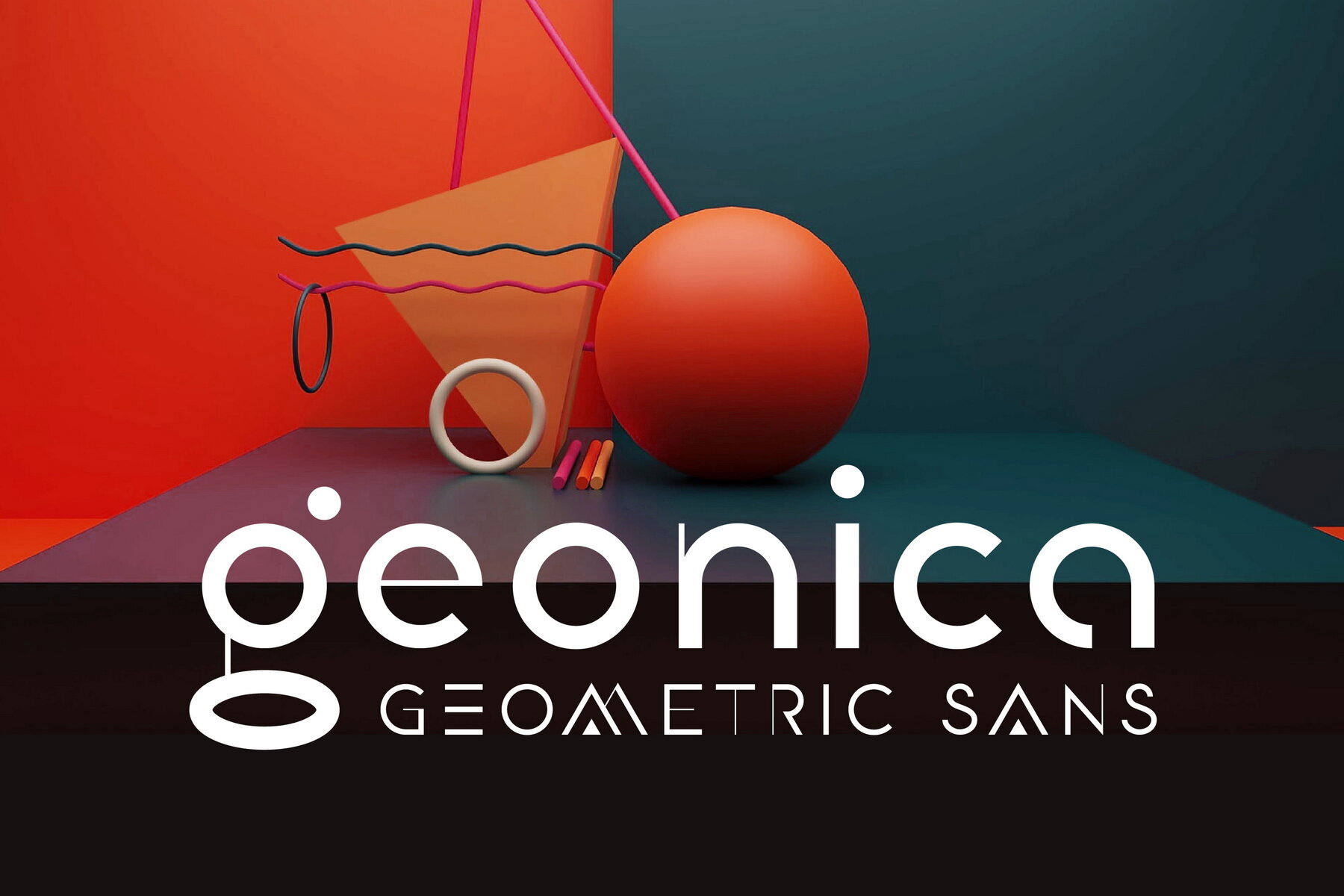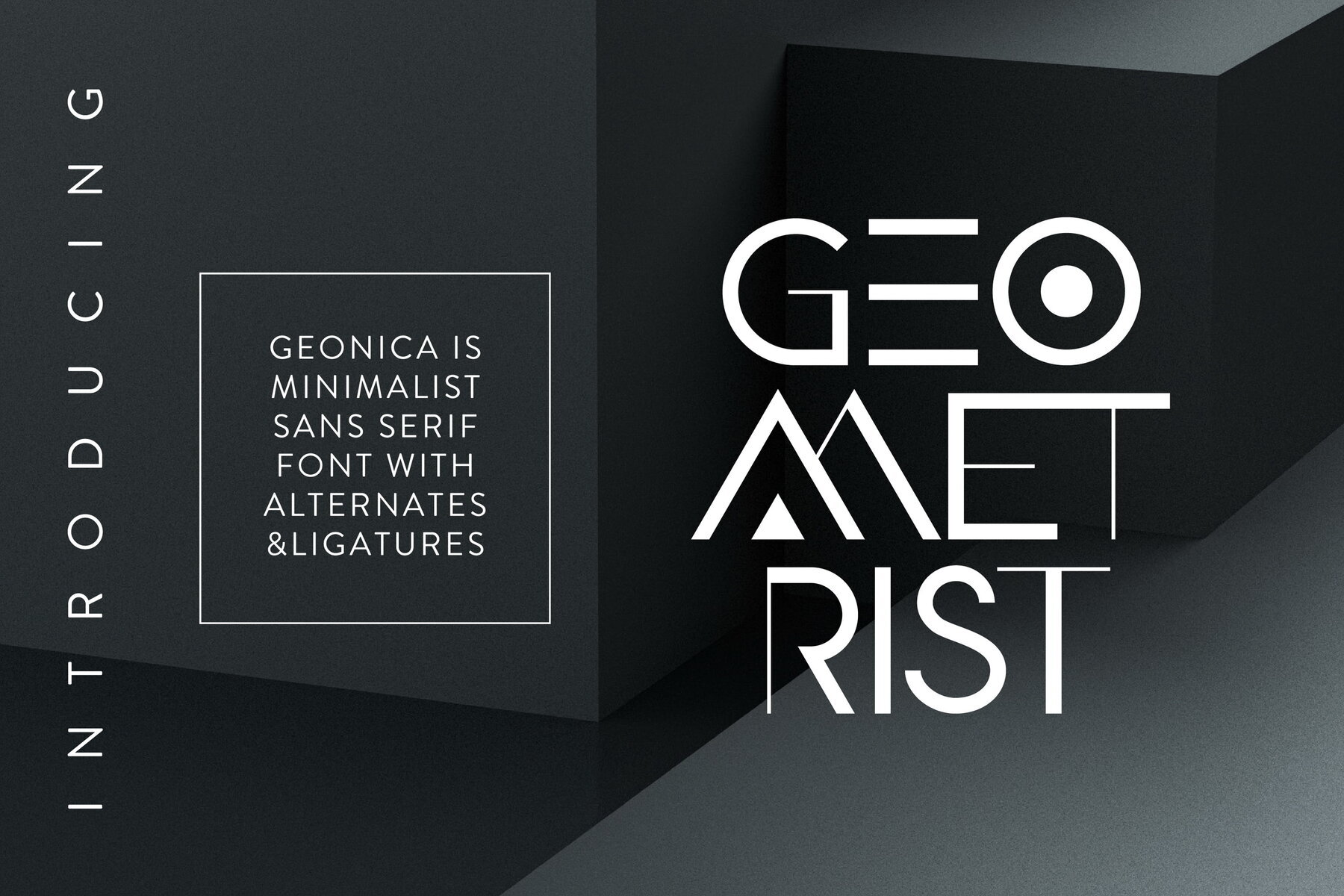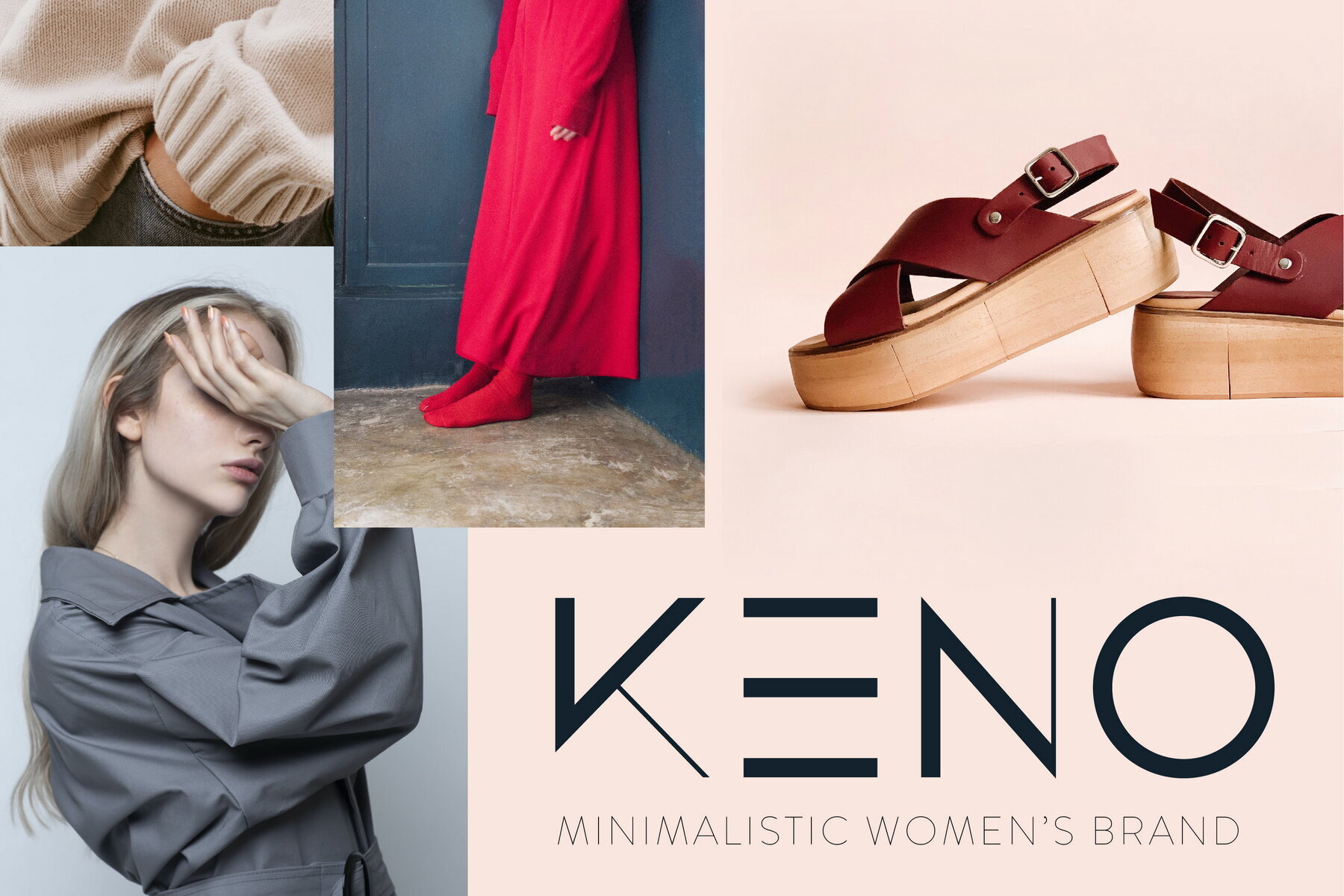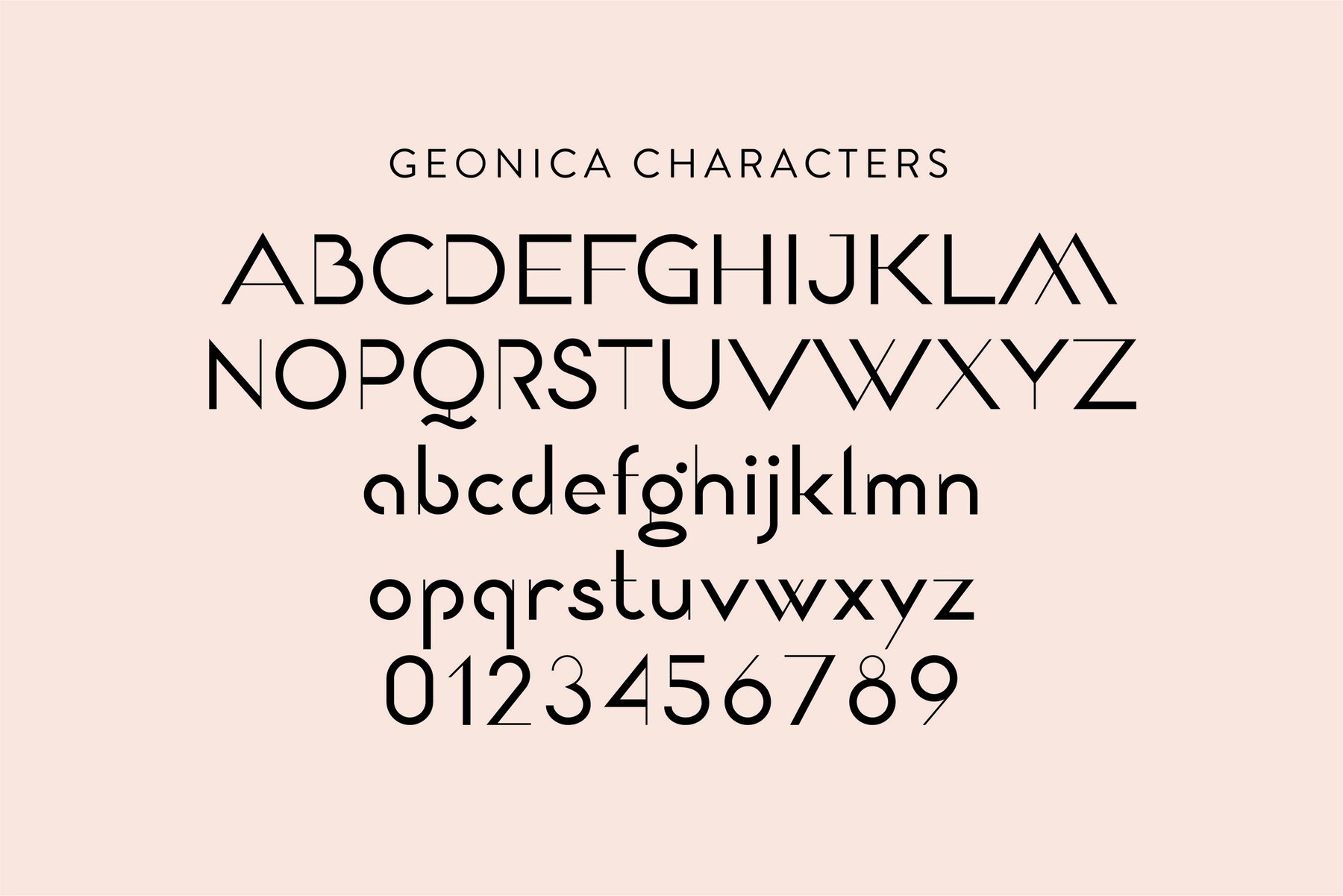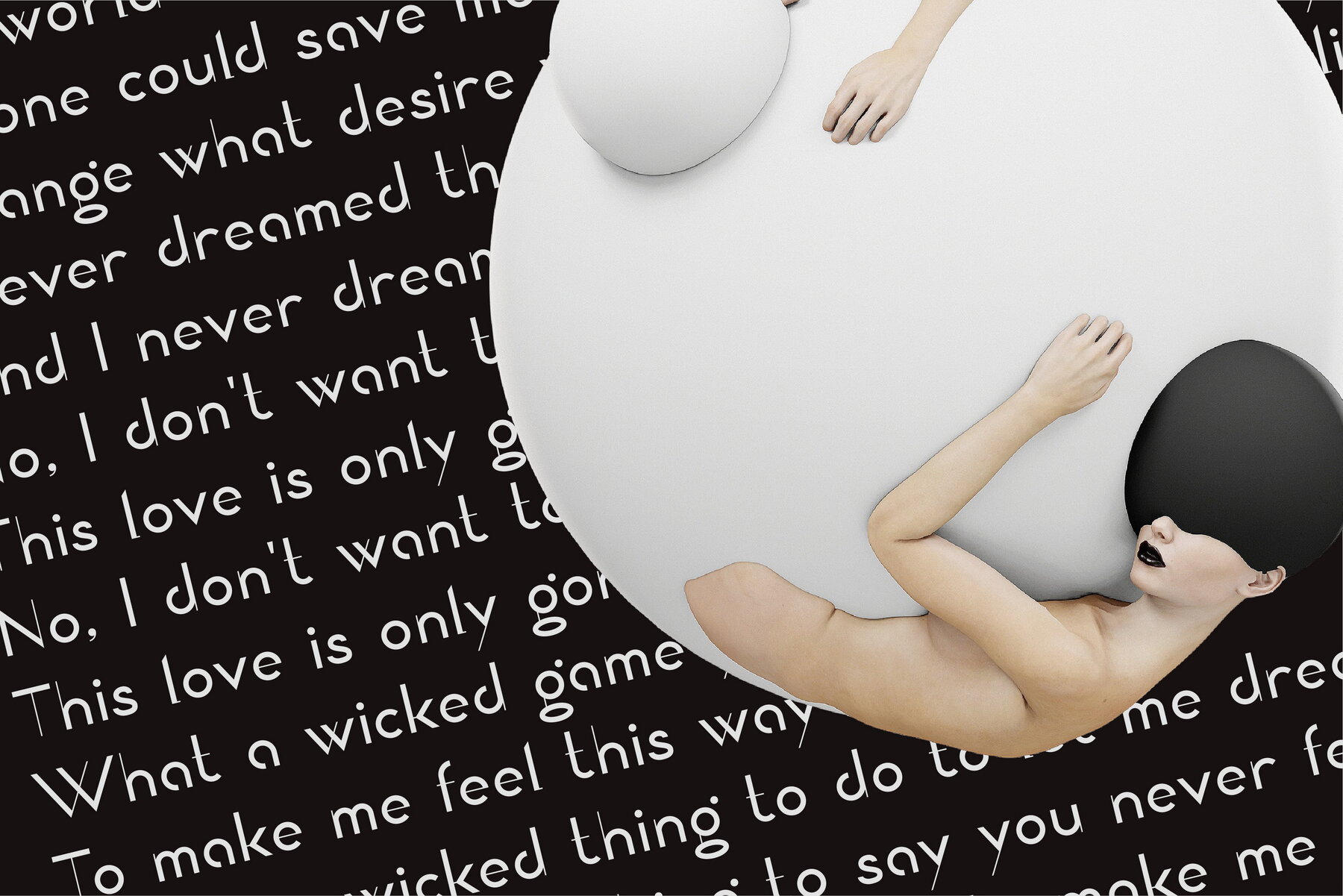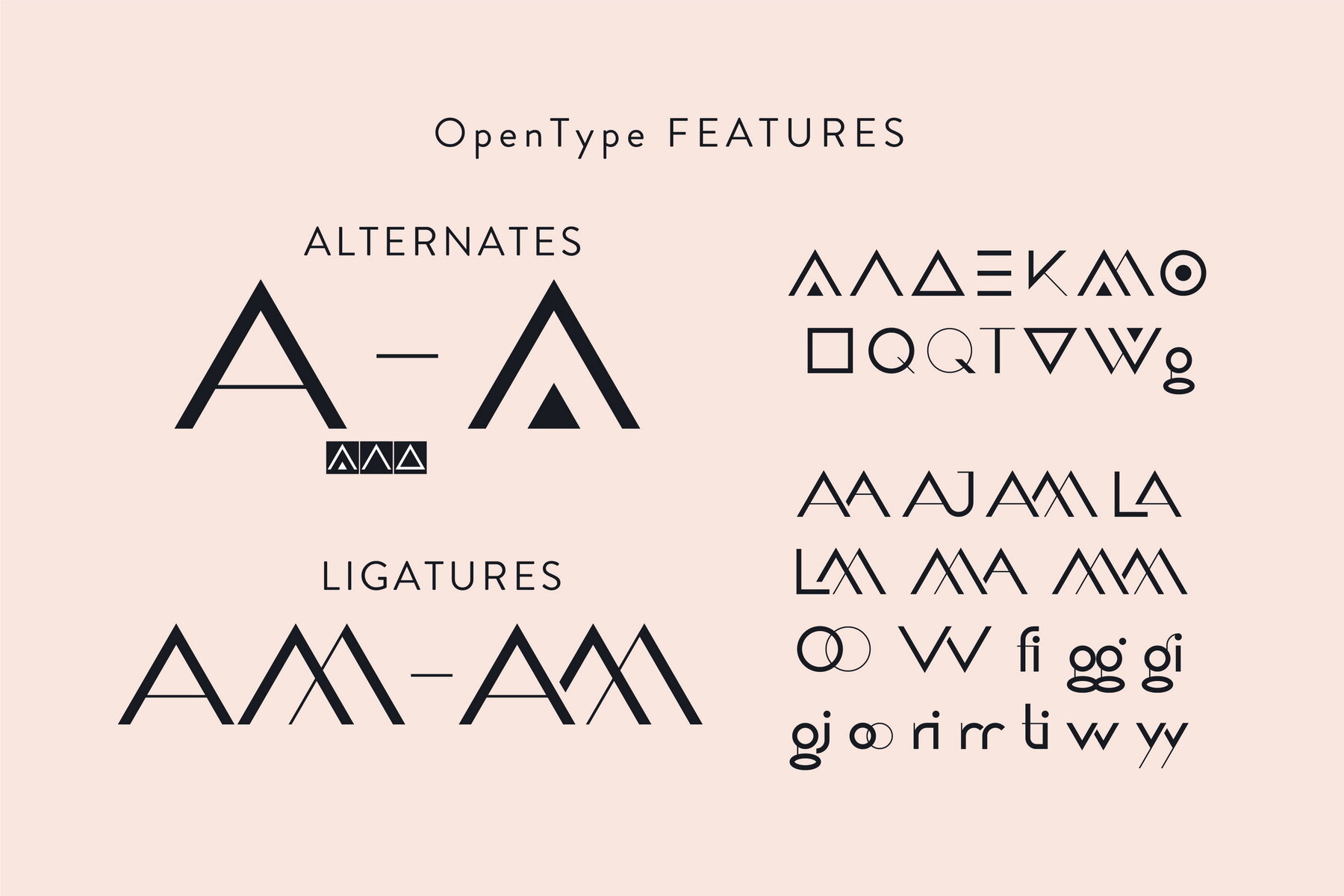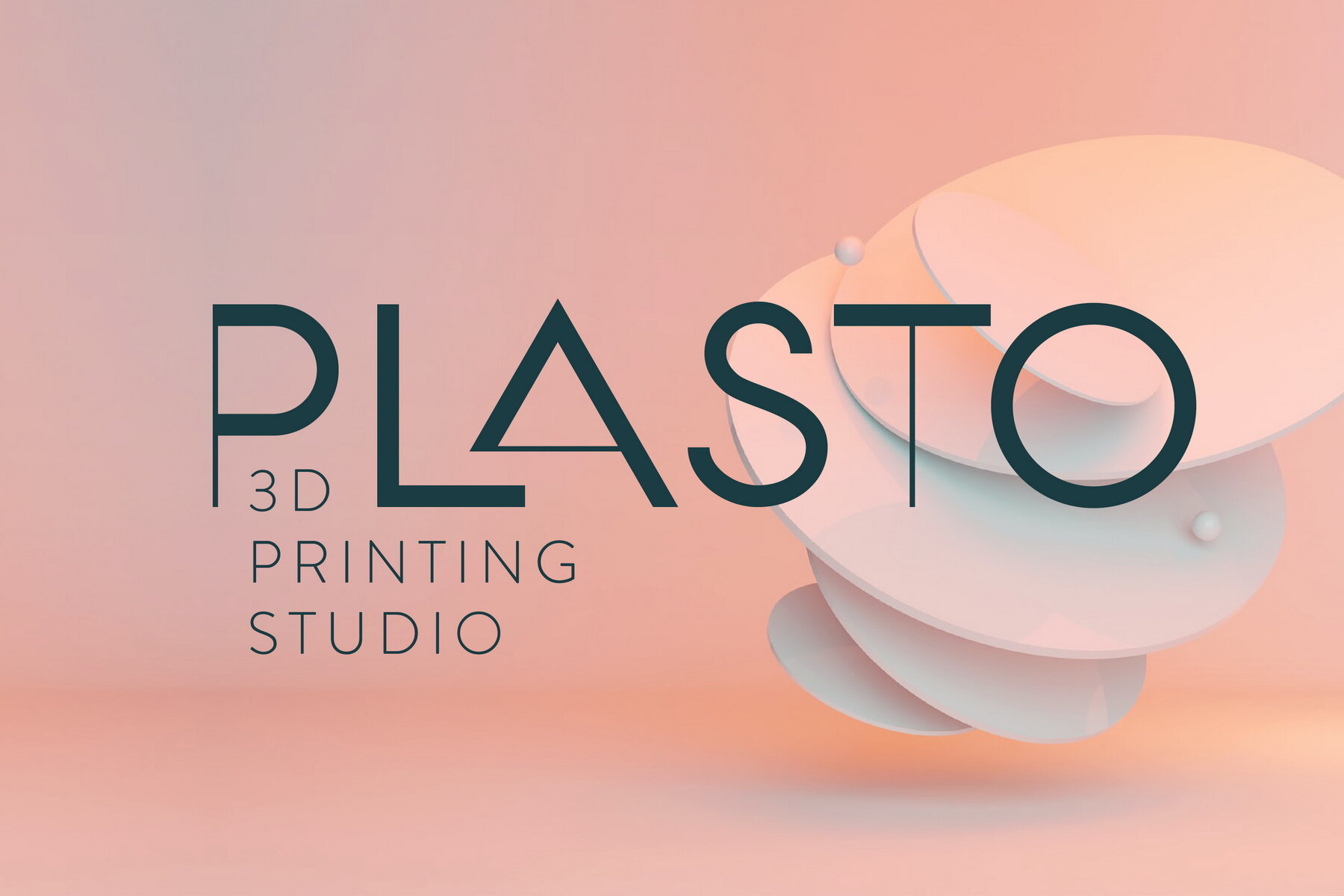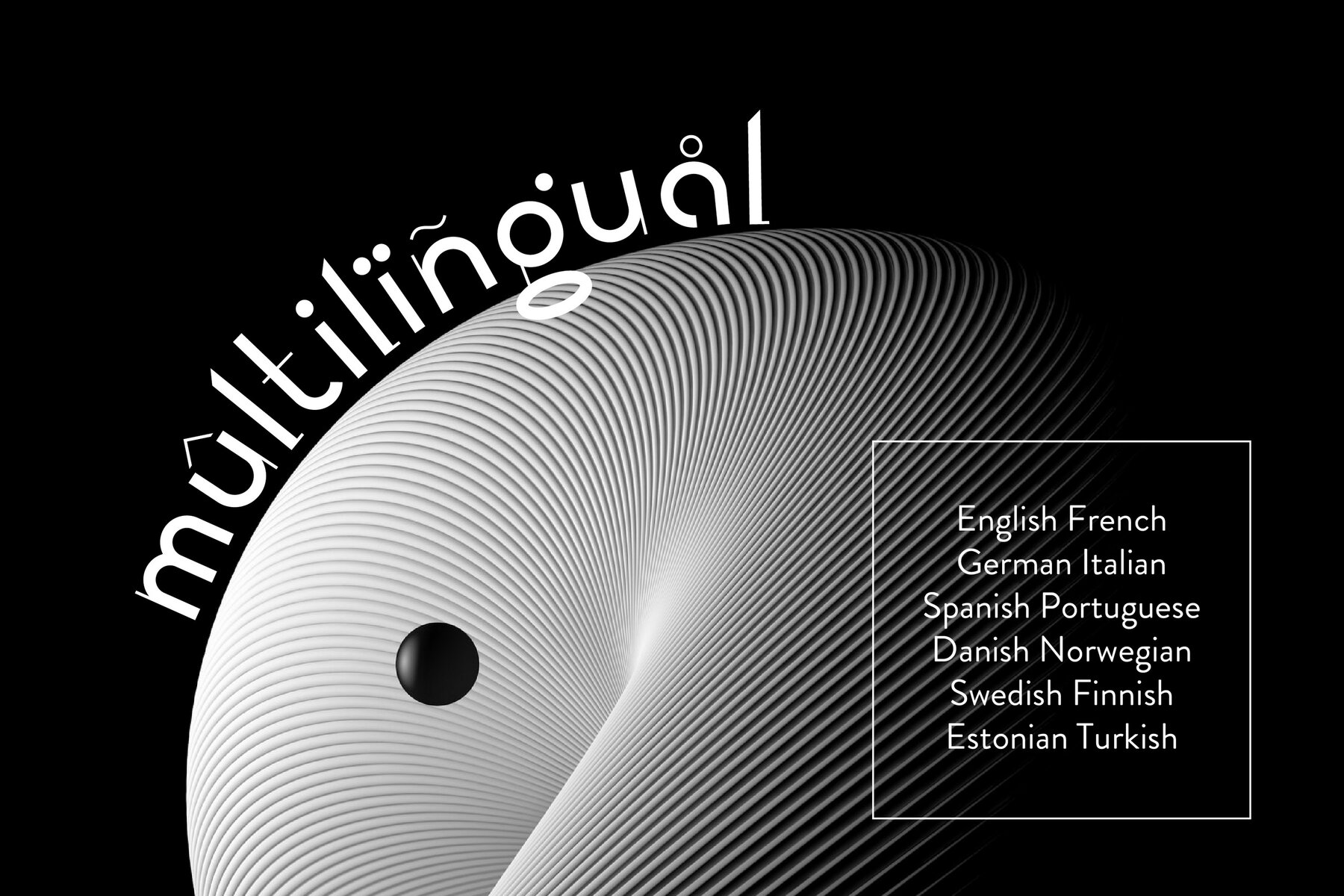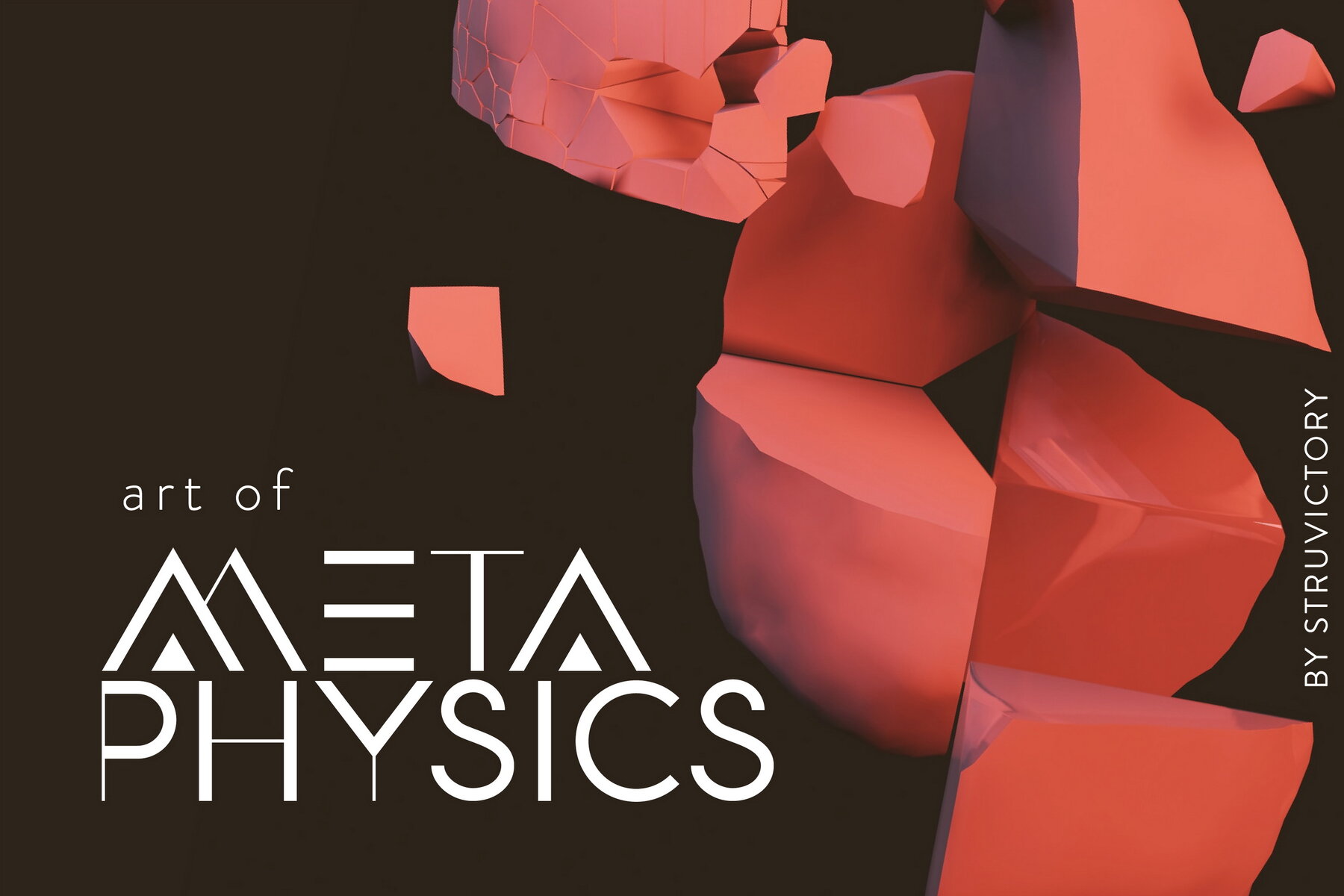
Geonica Font
Geonica Regular
Geonica is a geometric sans serif font that embodies minimalism. This typeface features stylistic alternates and ligatures, making it ideal for projects themed around architecture, the gaming industry, and minimalistic design.Geonica: Minimalistic Geometric Sans Serif